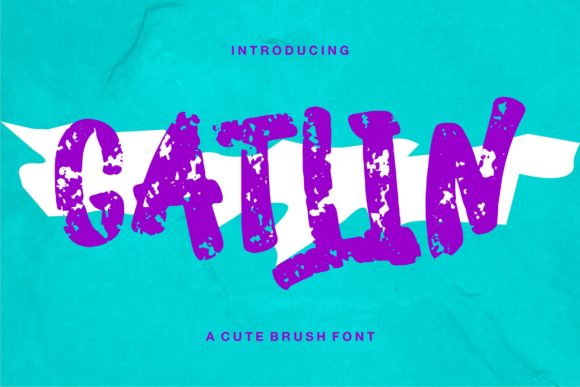
Dive into the world of script tattoos and let your imagination soar with Gatlin Font, a captivating creation by Vunira. This masterpiece isn't just a font; it's an art form, a symphony of strokes that dances on the page. Let Gatlin Font transform your designs into breathtaking works of art. Unleash your creativity and let the rough-textured beauty of Gatlin Font elevate your posters, flyers, and prints to new heights. The possibilities are endless with this font, so dive in and let your imagination run wild!
Discover the raw, untamed spirit of Gatlin Font and let it ignite your artistic vision. Its bold, confident strokes command attention, while its intricate details captivate and intrigue. Whether you're a seasoned designer or just starting your creative journey, Gatlin Font is your passport to creating captivating designs that speak volumes. Embark on an artistic adventure where every letter is a brushstroke, every word a masterpiece.
Challenge the boundaries of creativity and let Gatlin Font take you to new heights. Its unique texture adds a touch of authenticity and character to your designs, making them stand out from the crowd. Gatlin Font isn't just a font; it's a conversation starter, a magnet for curious eyes. Unleash your inner artist and let Gatlin Font guide you towards design greatness.
Seize the opportunity to make a statement with your designs, to leave an imprint on the world of visual communication. Gatlin Font is your gateway to unlocking your creative potential and crafting designs that resonate with your audience. Let your vision take flight and let Gatlin Font be the wind beneath your wings. Experience the transformative power of Gatlin Font and witness the birth of designs that captivate, inspire, and leave a lasting impression.